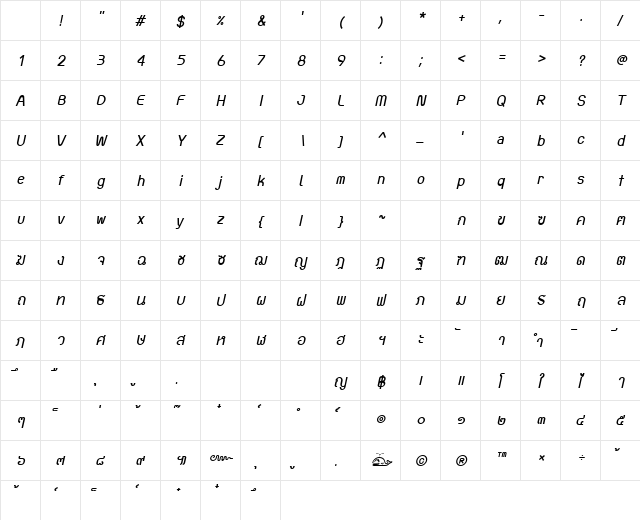
Complete TP Tankhun Bold Italic glyph index. Displaying only characters natively supported by TP Tankhun Bold Italic font.
TP Tankhun is a composed and adaptable typeface that performs quietly and consistently across a wide range of design contexts. The slanted form adds forward momentum and visual energy. Its bold stroke weight gives it real presence on the page.